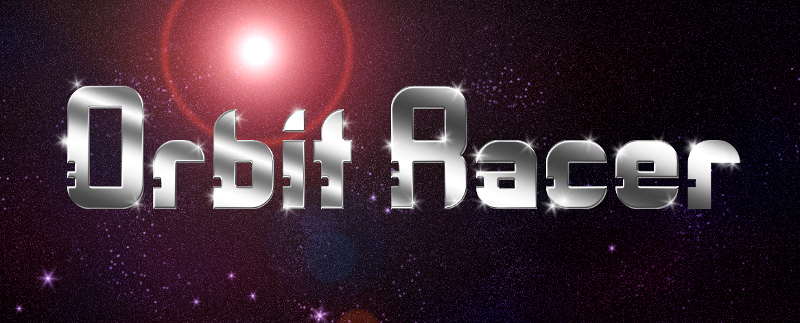
Orbit Racer is a striking display font that exudes a bold, futuristic aesthetic. Designed by Chris Fiedler, this typeface features sharp, angular letterforms that convey a sense of speed and dynamism. The geometric, almost mechanical shapes lend a sleek, high-tech vibe, making Orbit Racer an excellent choice for a range of modern design applications.
From eye-catching logos and headers to dynamic product packaging and avant-garde advertising campaigns, this font's distinctive character is sure to command attention. Its versatility allows it to seamlessly integrate into a variety of visual identities, adding a touch of cutting-edge sophistication to any design.
It is my very first Font. Hope it will accepted.
Orbit Racer
Modern Sci-Fi Font